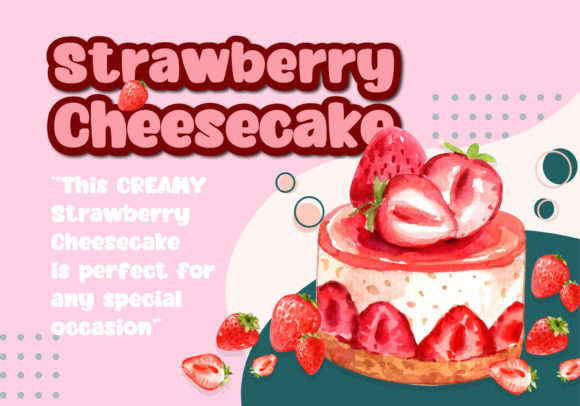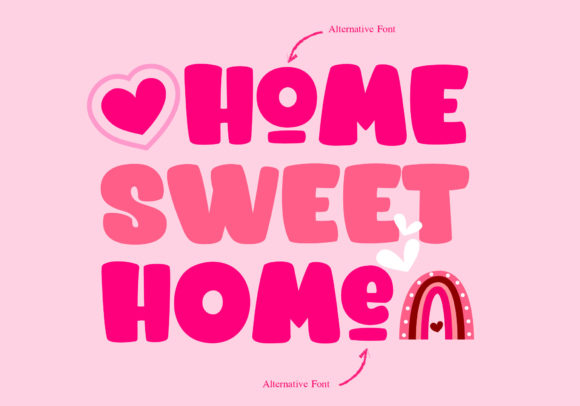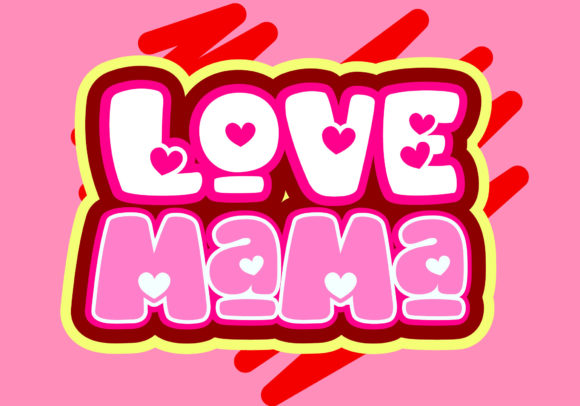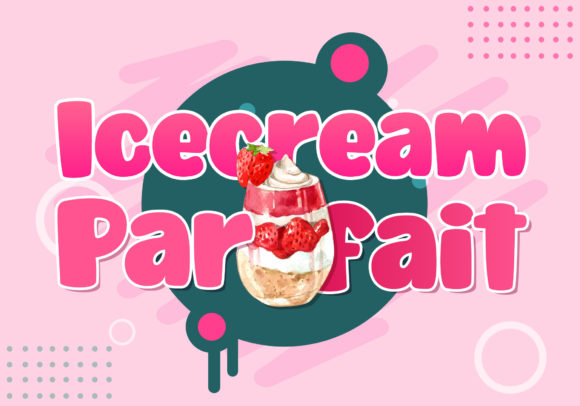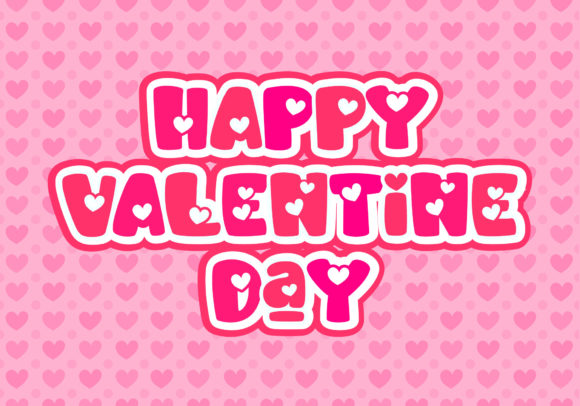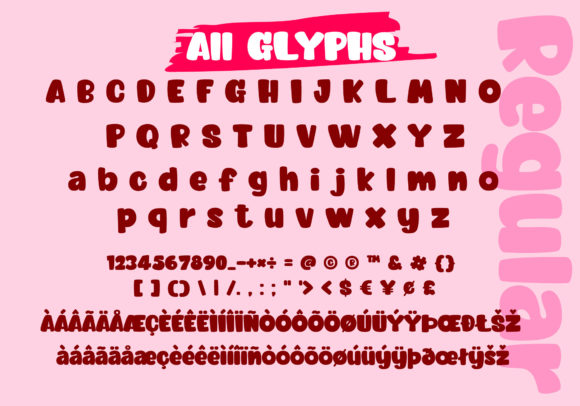
Introduction to Love Story Font Font
Do you remember the first time you fell in love with a font? For many designers, it’s that magical moment when a particular typeface speaks to their creative soul. For me, it was when I stumbled upon the charming Love Story Font Font. Its bubbly, chunky letters and friendly display style instantly made me smile.
As a design resource, Love Story Font Font embodies playfulness and authenticity, making it the perfect choice for any children’s activity or elementary school design. With its high-quality design and transparent background, this font is a valuable addition to any creative project. Whether you’re working on a children’s book, a birthday invitation, or a fun educational website, Love Story Font Font is sure to bring a smile to your audience’s faces.
Key Features of Love Story Font Font
- High-quality, hand-crafted design for a romantic and creative project
- Transparent background, allowing for easy customization and versatility
- Unique characteristics include swashes, flourishes, and alternate characters for added flair
- Perfect for wedding invitations, love quotes, and other romantic designs requiring a touch of elegance
Honest Review: Love Story Font Font
I recently stumbled upon the Love Story Font Font and was excited to dive in and see what it had to offer. As a designer, I’m always on the lookout for high-quality design resources that can elevate my creative projects.
- Beautiful and versatile font design
Overall, I’m impressed with the Love Story Font Font and would recommend it for smaller-scale design projects or personal use. While it may have some limitations, it’s a great addition to any designer’s toolkit.
For the best results, use Love Story Font Font on a transparent background to ensure your design looks professional. Experiment with different font sizes and styles to create a unique and creative look. You can also combine Love Story Font Font with other design elements to create a visually appealing design.